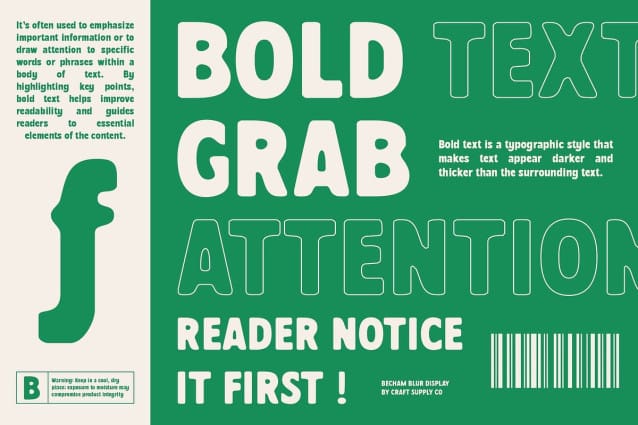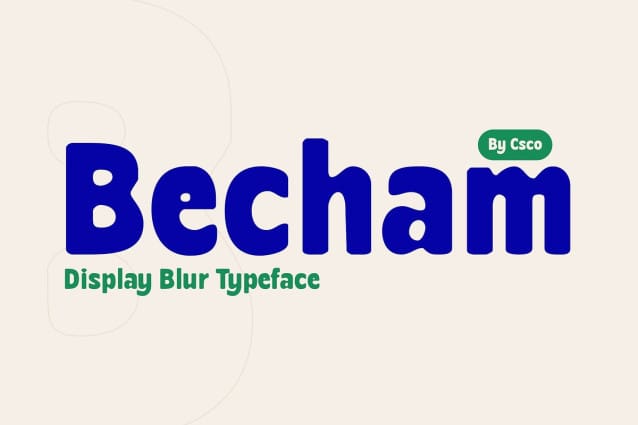
Becham Blur Font
Becham Blur Font is a modern sans serif font characterized by its bold shapes and clean, sharp lines. The strong and assertive letterforms provide a commanding visual presence, making it ideal for designs that need to make a statement. The bold design exudes confidence and professionalism, perfect for impactful text.
Blur Effect for Depth and Motion What sets Becham Blur apart is the blur effect applied to the sharp lines, adding depth and a sense of motion to each character. This unique combination creates a dynamic impression, giving the font an energetic and creative feel. The subtle blur softens the sharp edges just enough to add visual intrigue without sacrificing readability.
Versatile for Contemporary Designs Becham Blur is ideal for contemporary design projects that aim to stand out. Whether used in posters, branding, or digital media, this font brings a bold and creative vibe, ensuring that your message captures attention with style. Its modern aesthetic, combined with a playful touch of motion, makes it versatile and suitable for a wide range of creative applications.